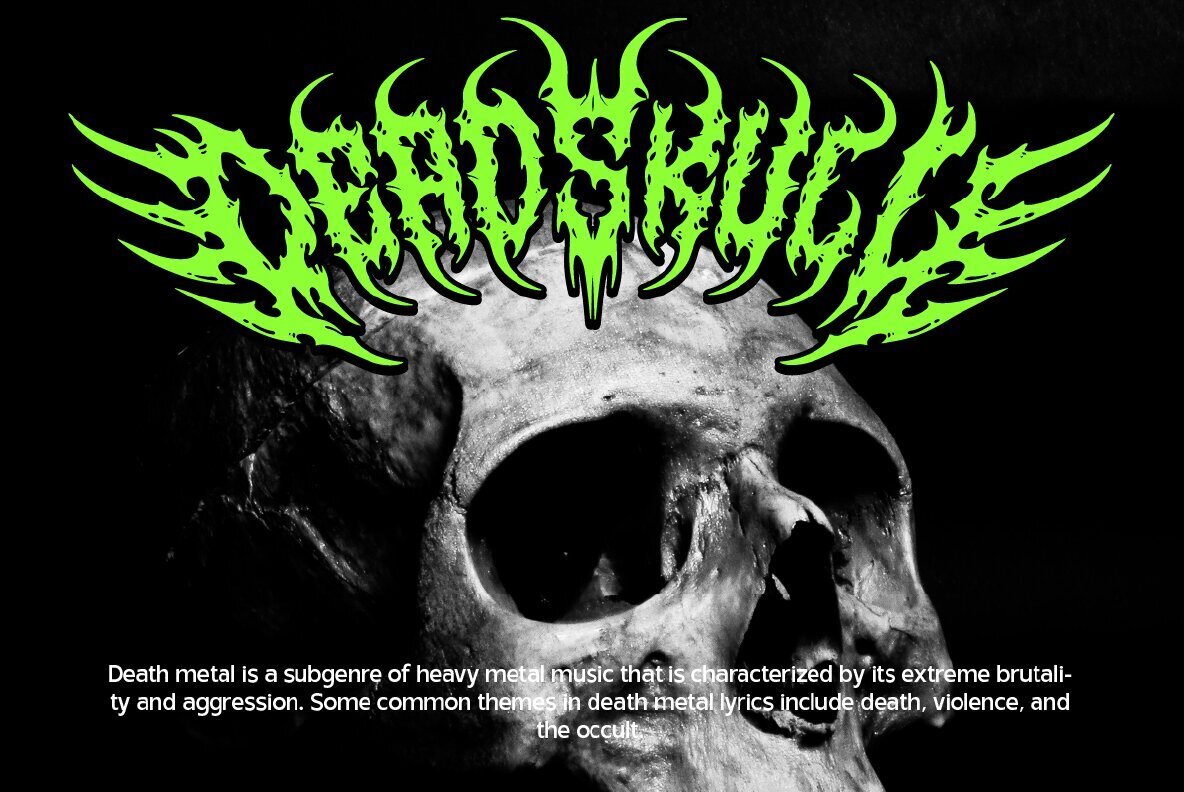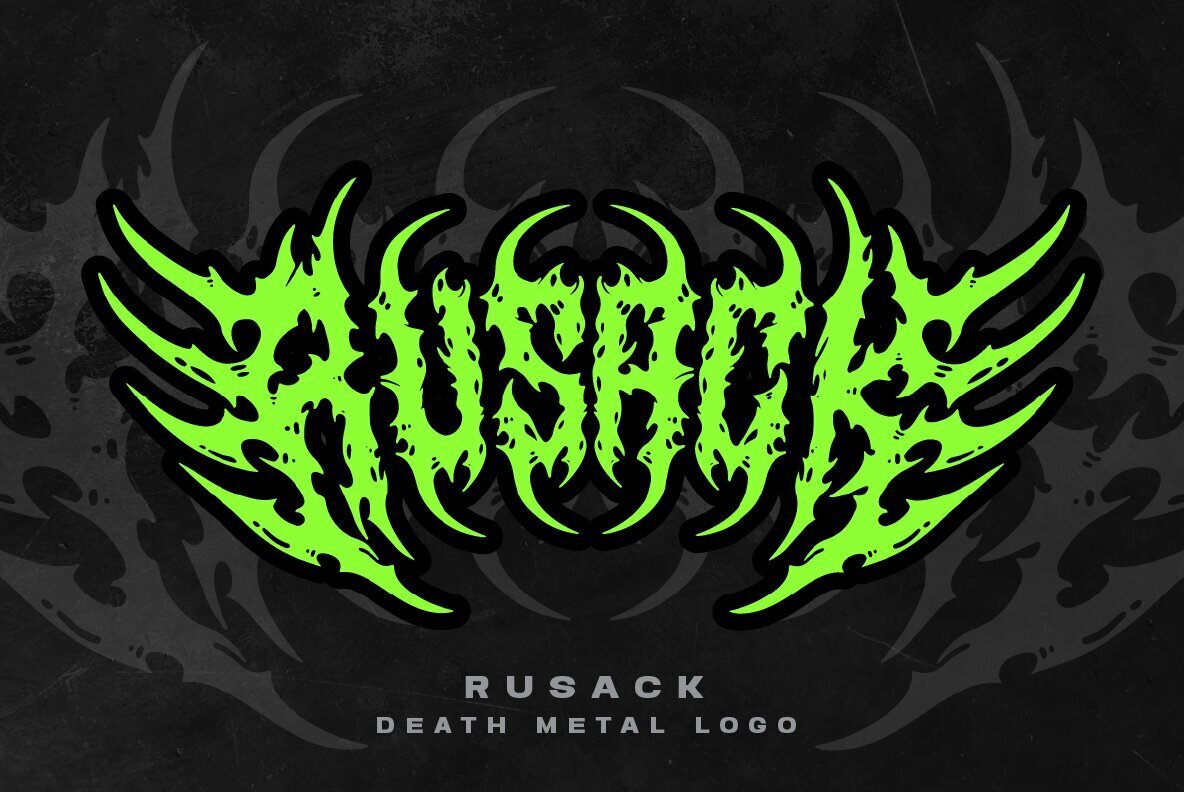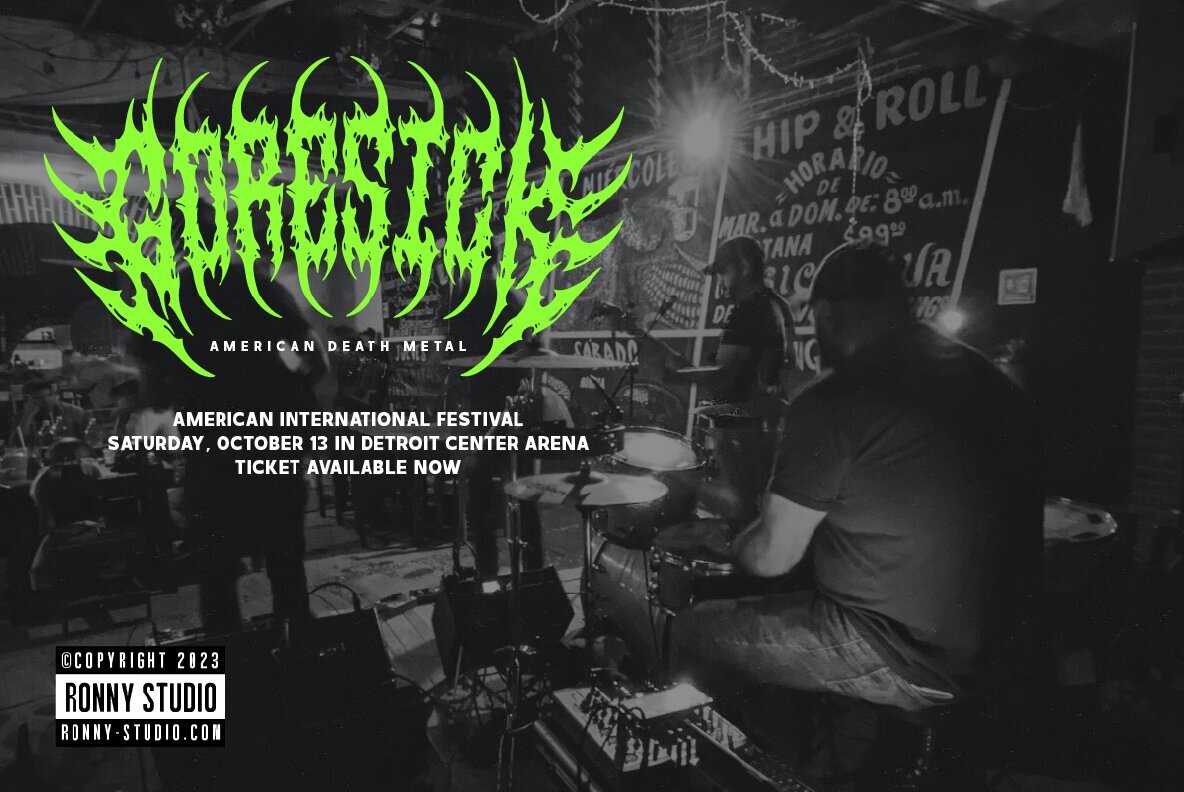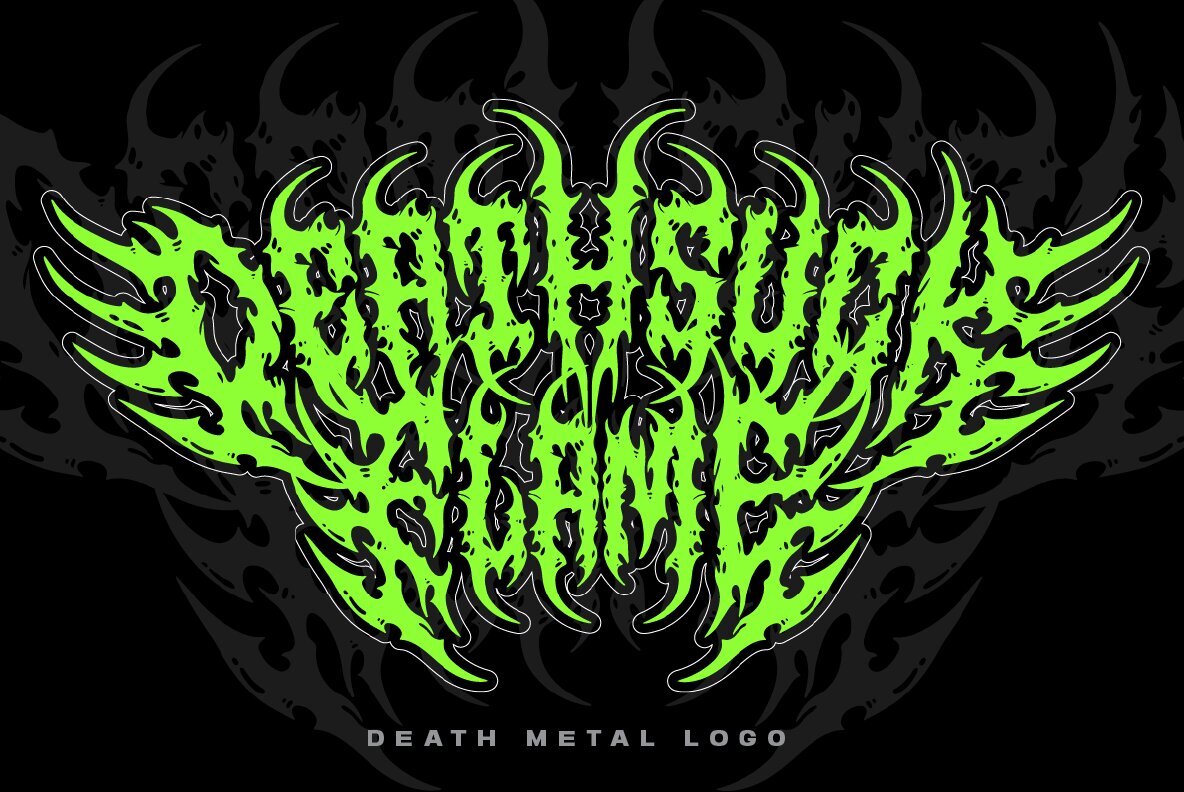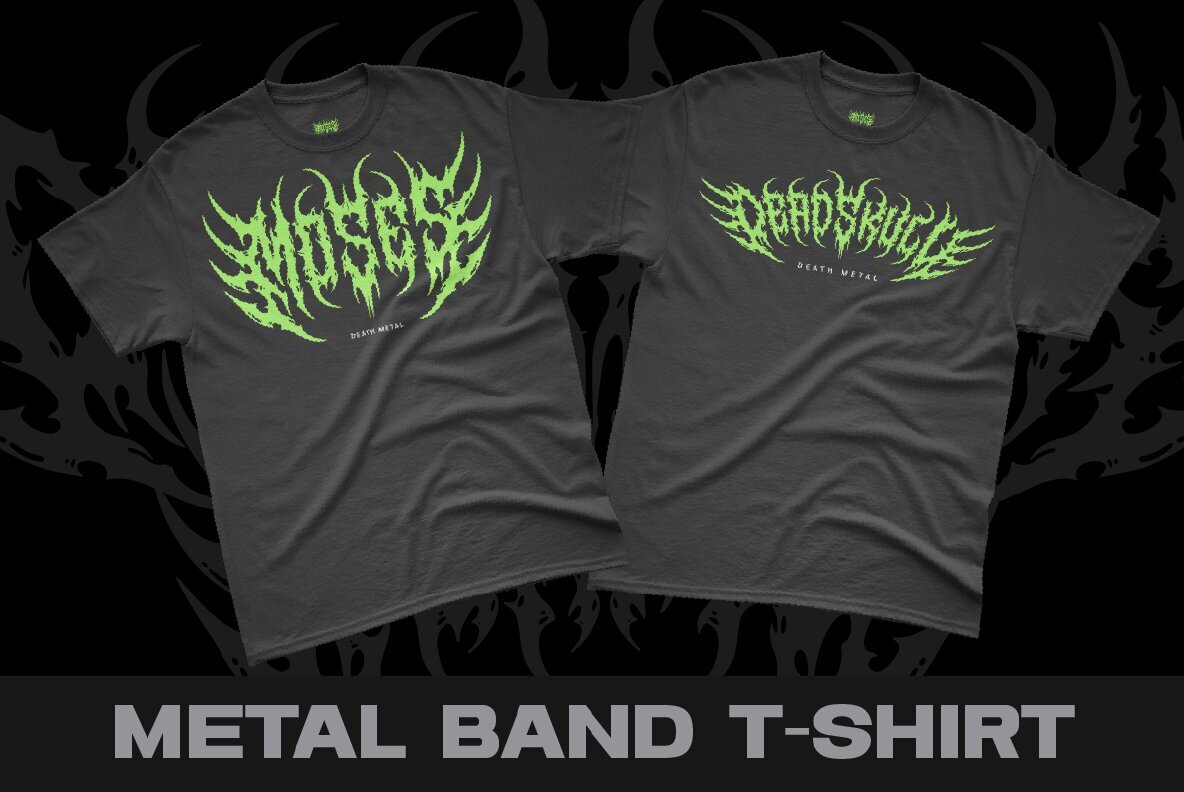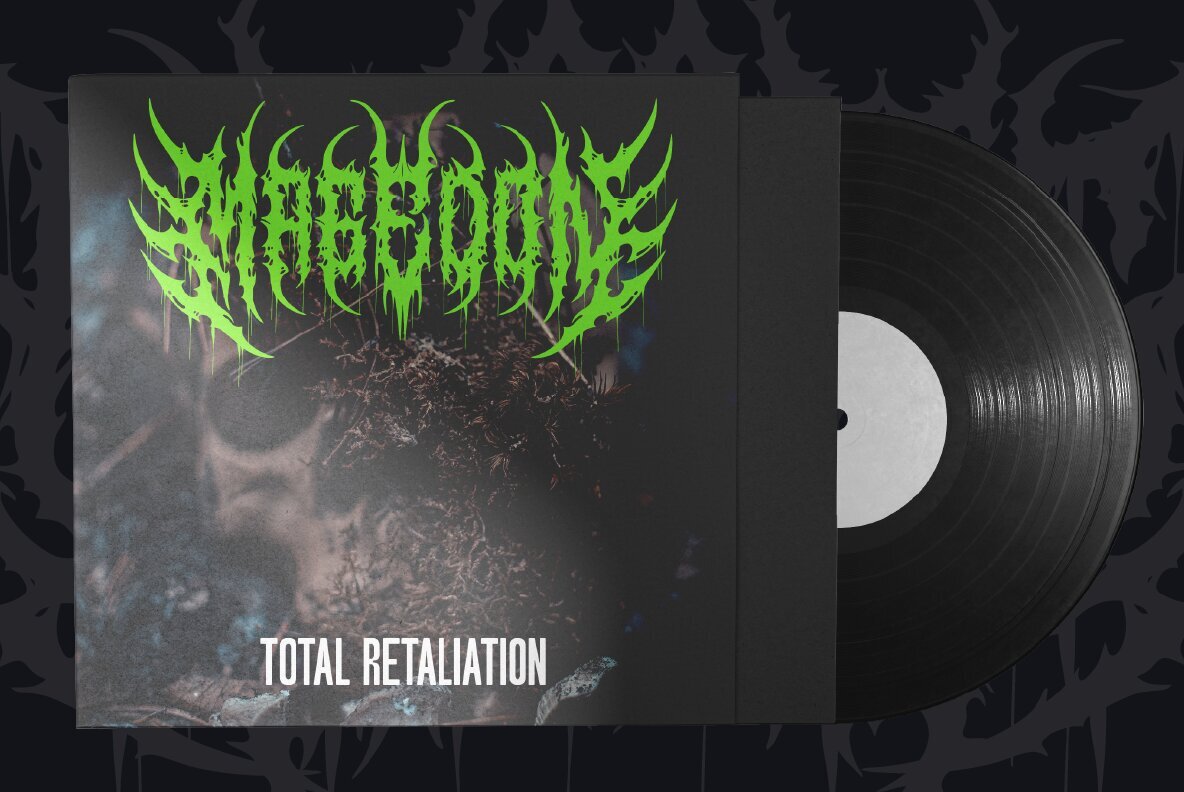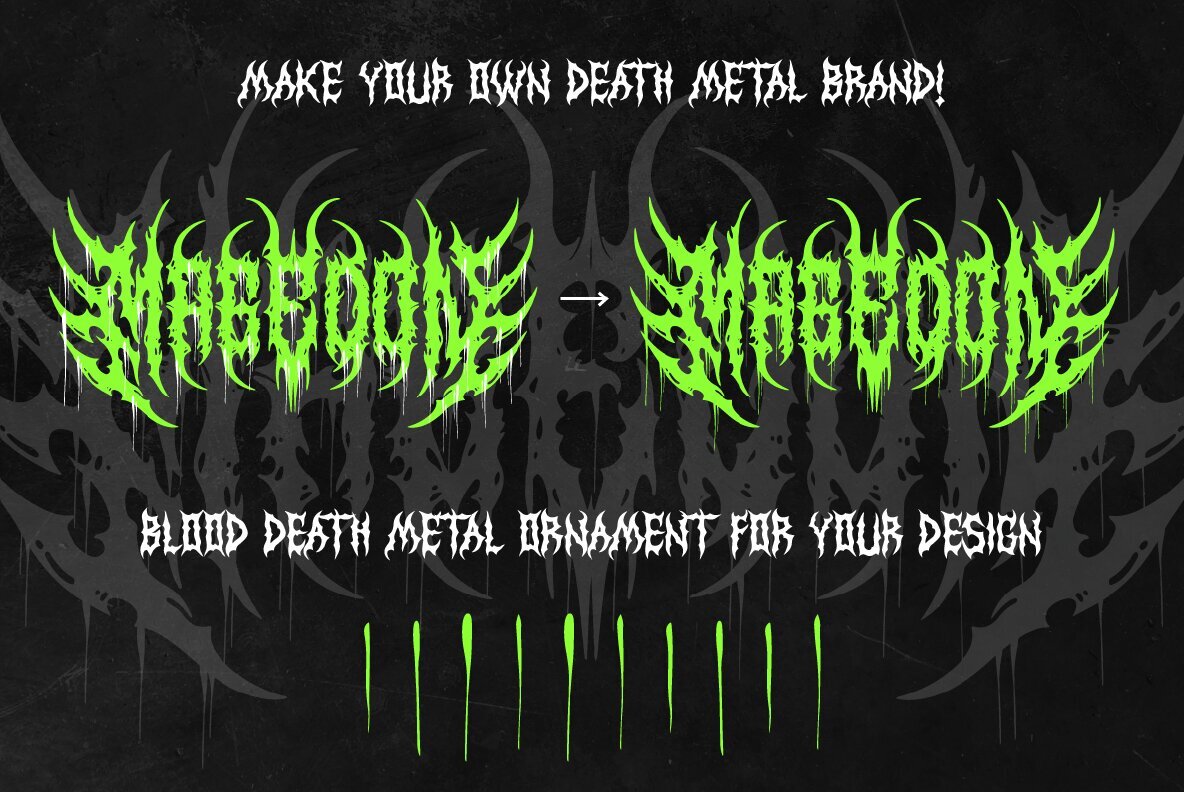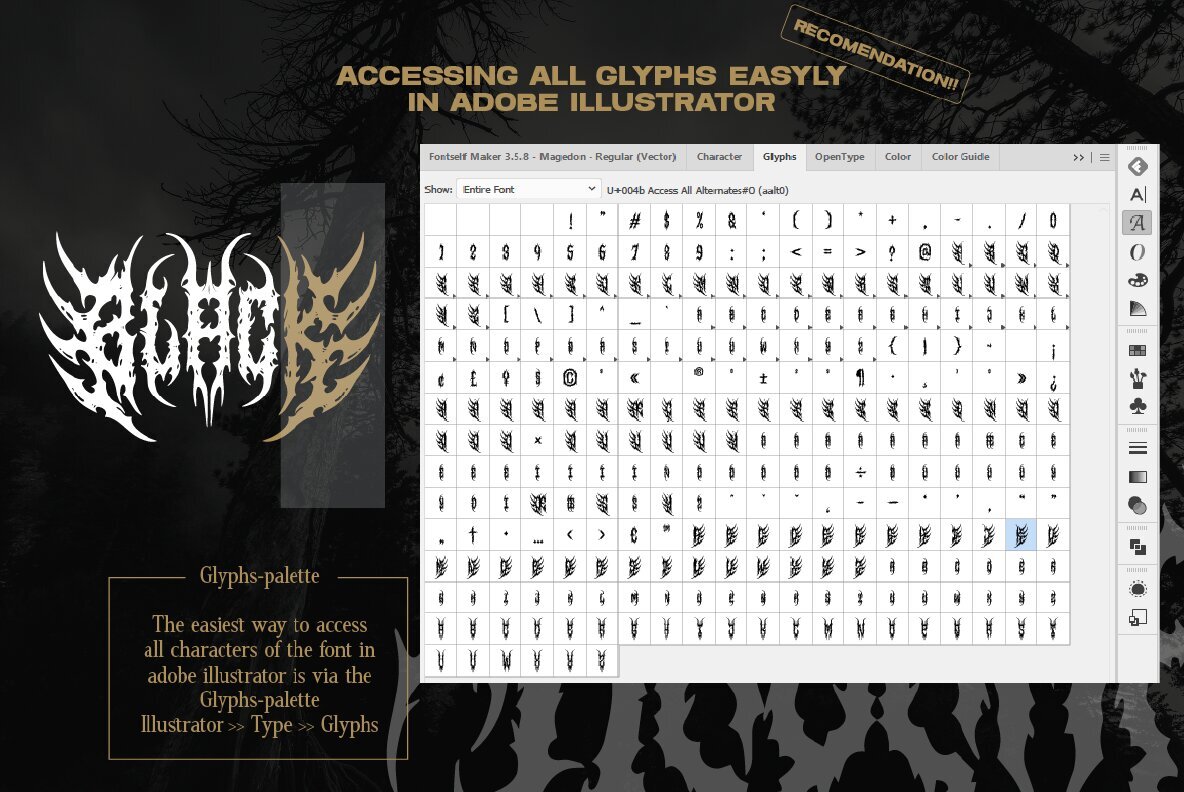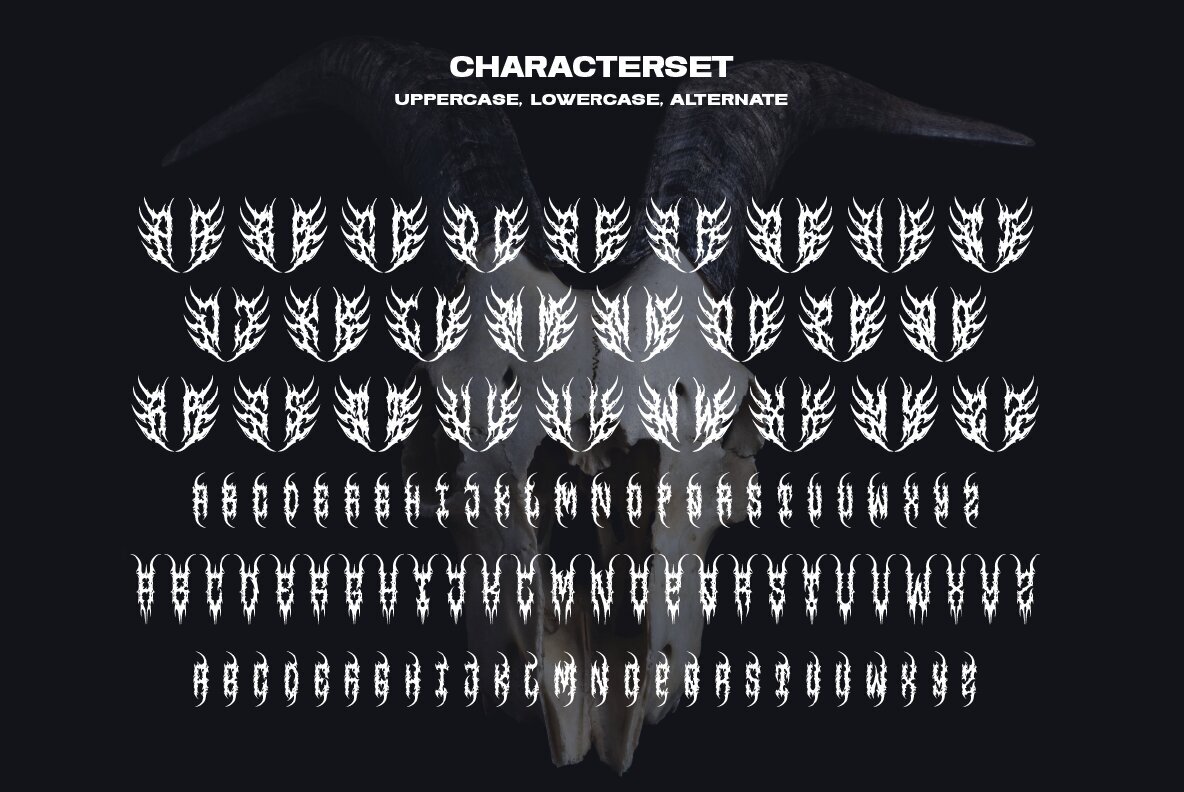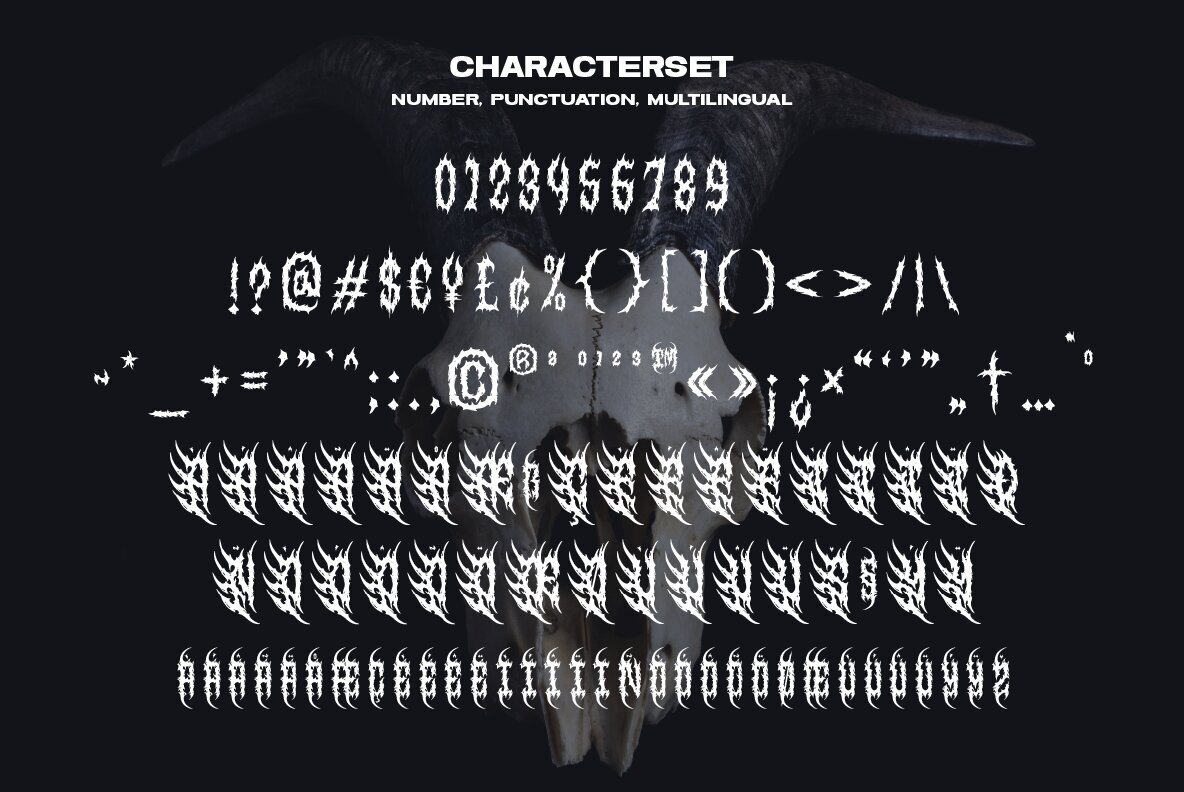
Magedon Font
Magedon Font offers a distinctive solution for designing logos for your underground band or other creative projects. This font comes to life with its alternate front and ending letters, and is equipped with a basic character set. It also includes a curated selection of symbols and signs commonly used in the extreme music genres, such as Death and Black Metal, featuring classic elements like pentagram drops, roots, spikes, and more.Magedon: Ideal Font for Underground Band Logos